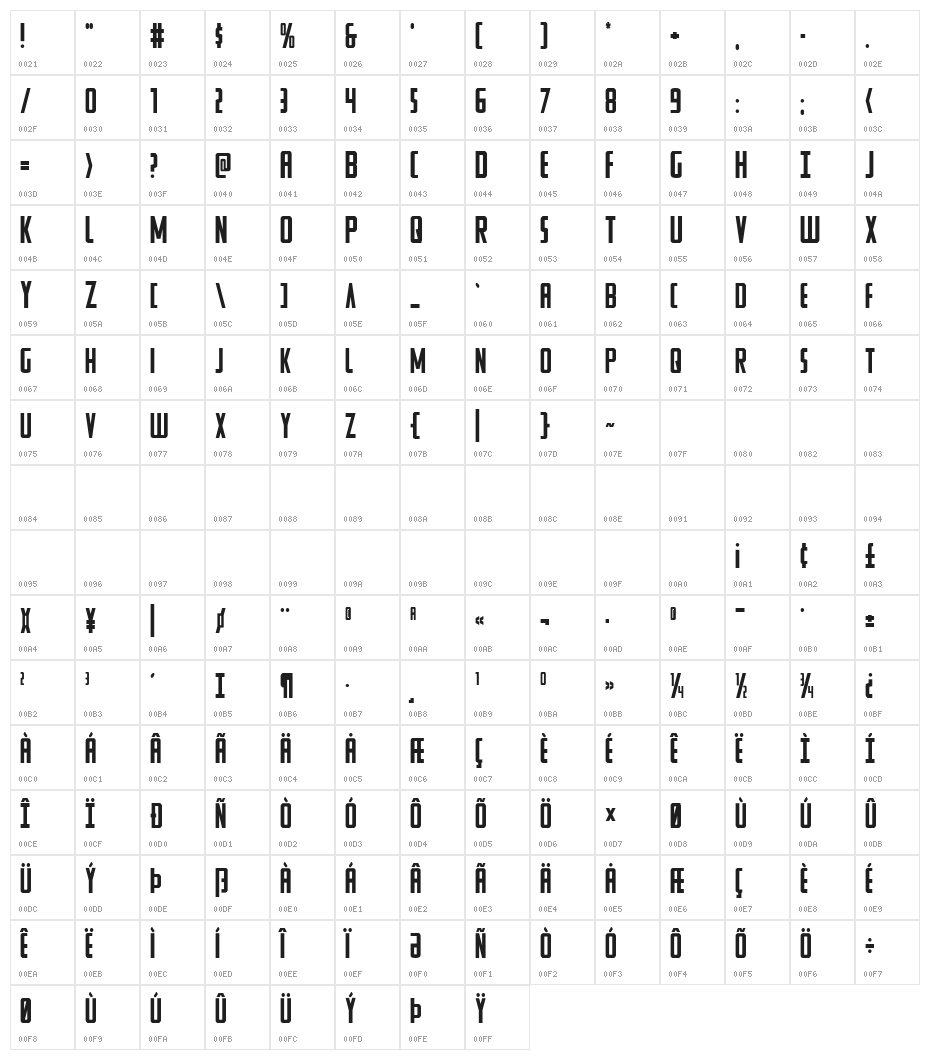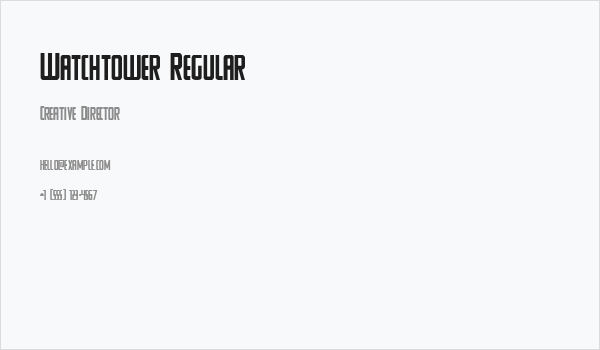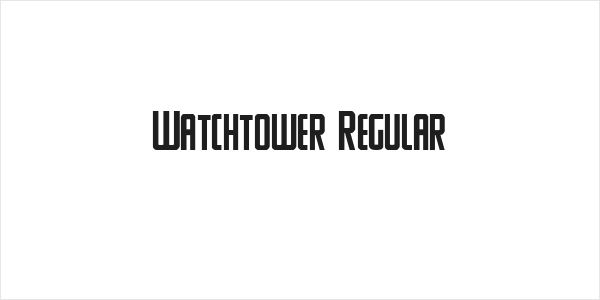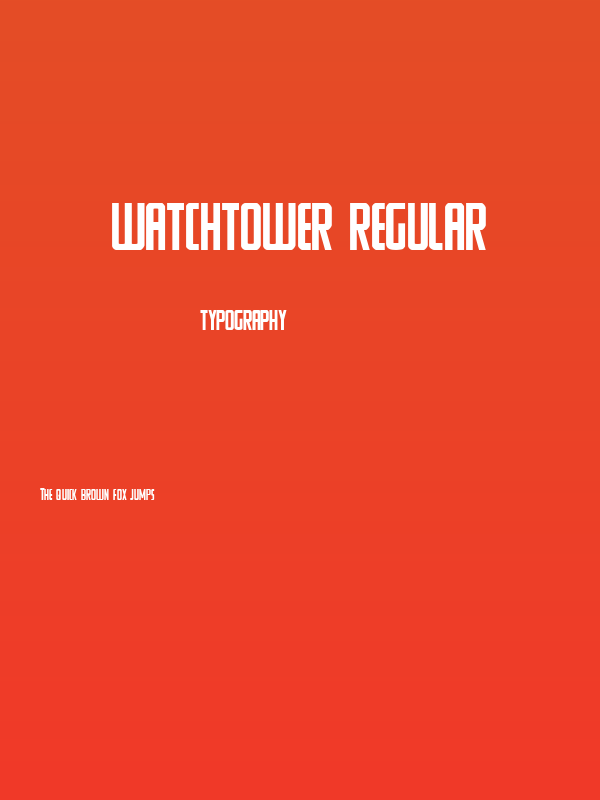
Watchtower Regular Font
Watchtower Regular Description
This font features a bold and geometric design, characterized by its strong, angular lines and uniform stroke widths. The uppercase letters are particularly striking, with a blocky and robust appearance that commands attention. The numerals and special characters maintain the same boldness, ensuring consistency across all glyphs. Its modern and assertive style makes it ideal for projects that require a strong visual impact.
Proposed ProjectsIdeal for posters, headlines, branding, and any design requiring a bold statement.